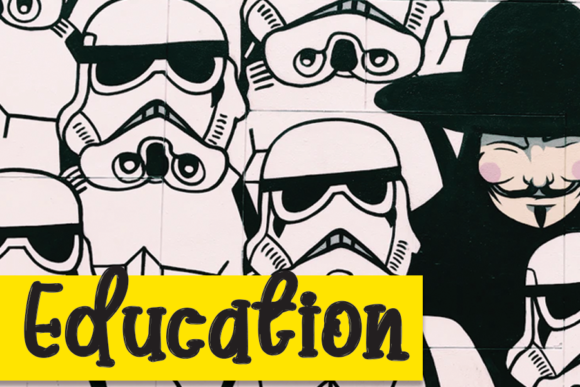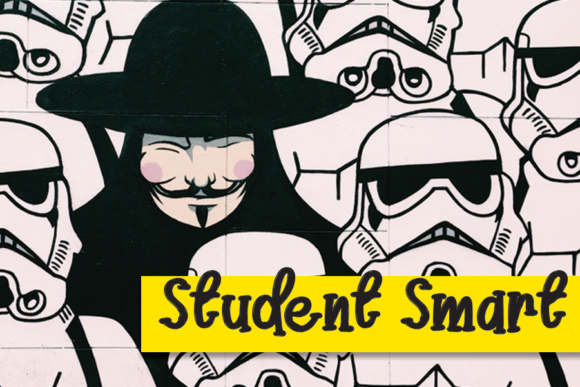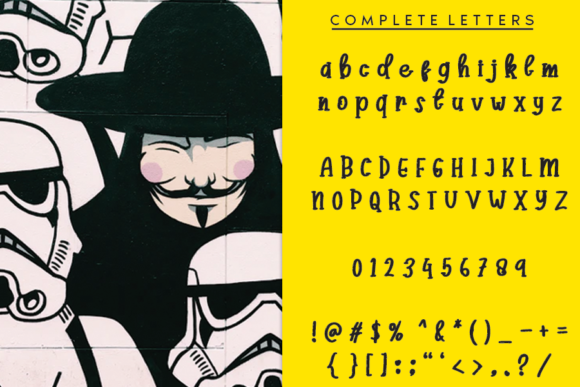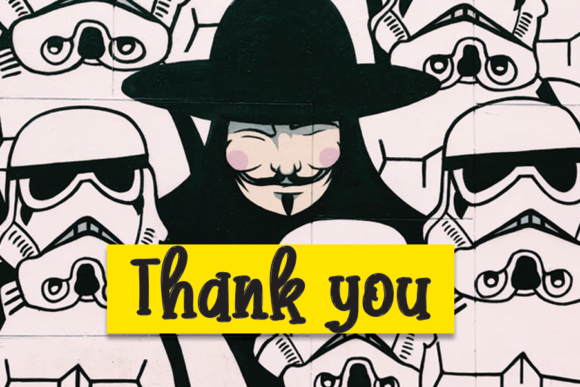
Honywork Font
About Honywork Font
Honywork is a delicate, elegant and flowing handwritten font. It has beautiful and well balanced characters and as a result, it matches a wide pool of designs. Add it to your most creative ideas and notice how it makes them come alive!